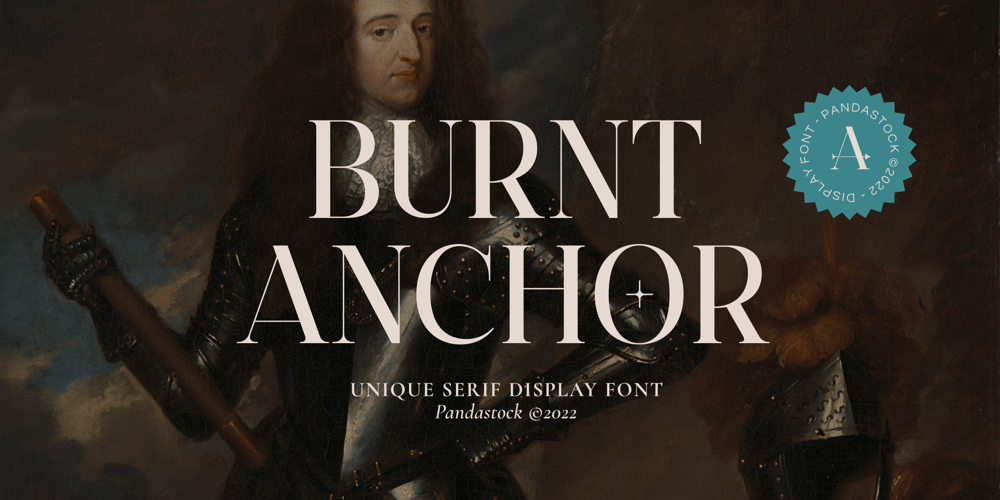
Burnt Anchor
Burnt Anchor font
Burnt Anchor Font Family was designed by Aulia Savira Putri and published by Imoodev. Burnt Anchor contains 1 styles and family package options. Burnt anchor is clean serif fonts with visual elegance, smooth curves, and beautiful ligatures clear, making your work look true and attractive.A versatile font that works in both large and small sizes. This font is suitable for a wide variety of projects such as invitations, logos, branding, magazine, photography, card, product packaging, mugs, quotes, poster, labels, signatures, and more.A font that is perfect for all business sectors including personal projects, studio, corporate, creative agency, industrial, company, etc.